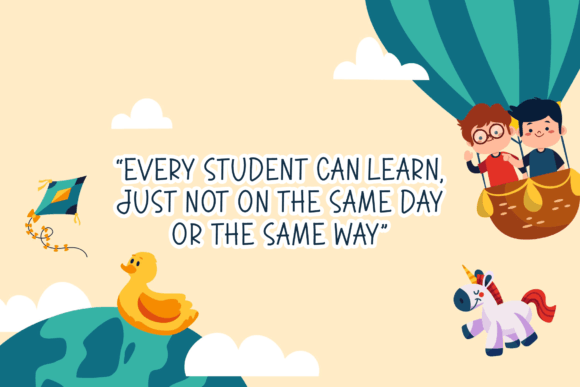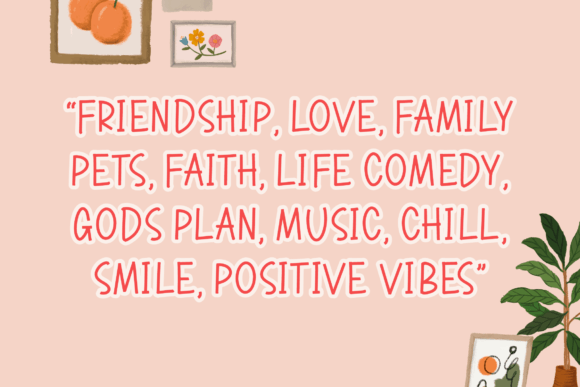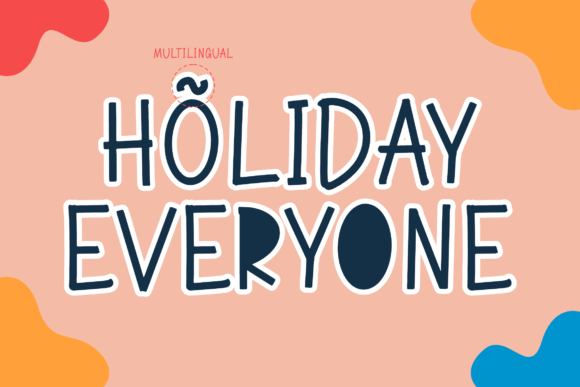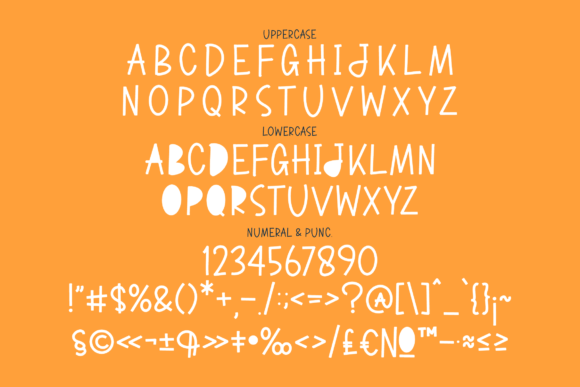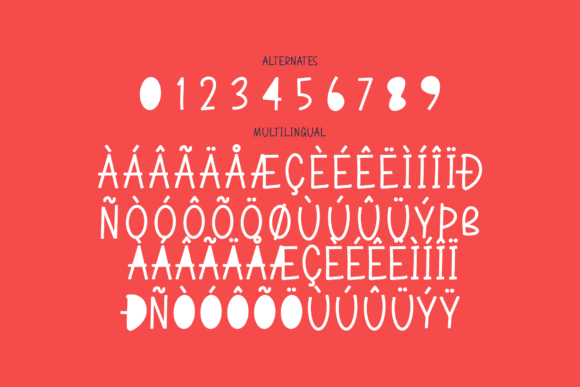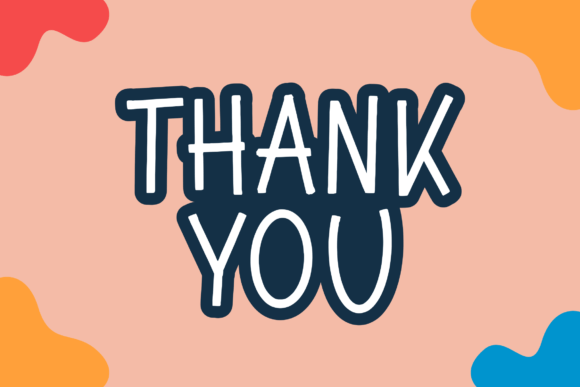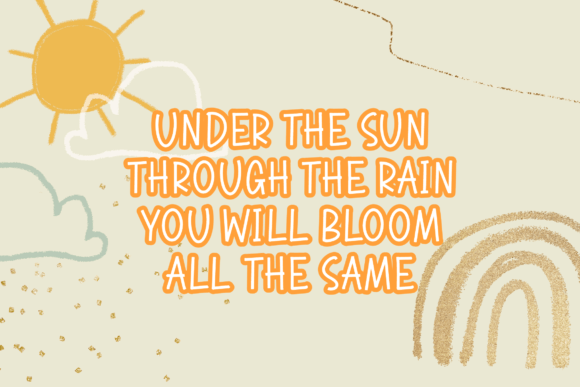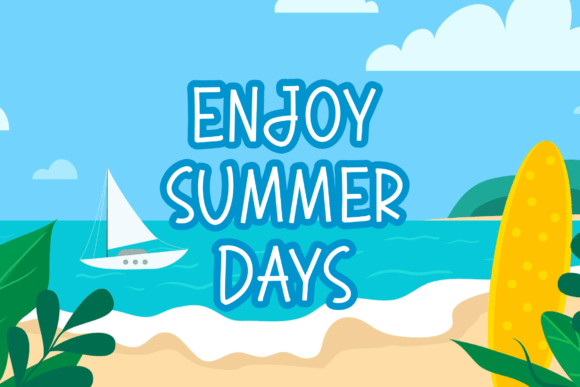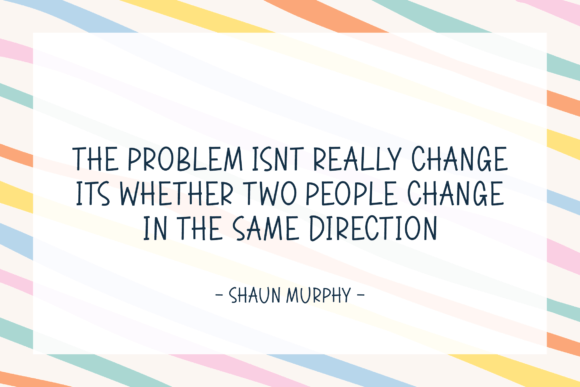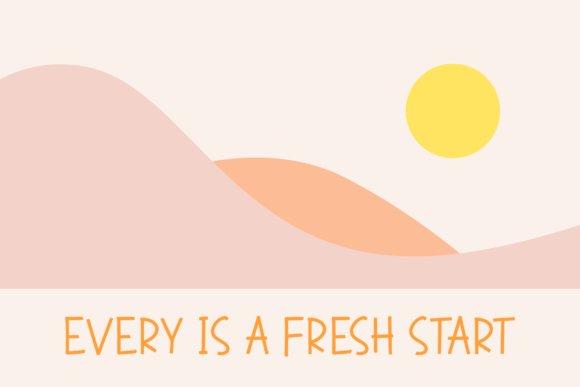
**Introducing SWEET MARKER: Infuse Cuteness and Quirk into Your Creative Ventures**
Meet SWEET MARKER, the epitome of cuteness and quirkiness in the world of handwritten fonts. This delightful typeface radiates an incredibly friendly feel, making it a perfect choice for a myriad of creative endeavors. Whether you’re curating your Instagram aesthetics or embarking on DIY projects that crave a touch of whimsy, SWEET MARKER is the magic wand that transforms every creative idea into a true piece of art!
**Captivating Cuteness:**
SWEET MARKER boasts a unique charm that’s hard to ignore. The font is imbued with a playful and cute demeanor, making it an instant favorite for those who seek to infuse their projects with a touch of lighthearted joy. Each letter exudes personality, as if it’s a character in a storybook, contributing to an overall ambiance of friendliness and approachability.
**Ideal for Instagram Vibes:**
For social media enthusiasts in search of the perfect font for their Instagram posts, SWEET MARKER is a game-changer. Its handwritten charm adds an authentic touch to captions, making your posts stand out in a sea of visuals. Whether you’re sharing daily adventures, inspirational quotes, or simply spreading positivity, this font elevates your content with an endearing appeal.
**Crafting DIY Magic:**
DIY projects thrive on personal touches, and SWEET MARKER provides just that. From handmade cards to custom labels, the font transforms ordinary materials into extraordinary creations. Its whimsical nature makes it a go-to choice for those who want their DIY efforts to be not just functional but also visually delightful.
**Transforming Creative Ideas into Art:**
At its core, SWEET MARKER is more than just a font; it’s a creative catalyst. It takes your ideas, no matter how simple or complex, and turns them into true works of art. The handwritten script adds a level of authenticity and warmth, enhancing the overall appeal of your creative endeavors.
**Conclusion: Elevate Your Creativity with SWEET MARKER**
In conclusion, SWEET MARKER is your go-to font for injecting cuteness, quirkiness, and a friendly feel into your projects. Whether you’re navigating the visual landscape of Instagram or immersing yourself in the world of DIY, this font is a versatile companion that transforms every creative spark into a visual masterpiece. Embrace the charm, captivate your audience, and let SWEET MARKER be the whimsical touch that takes your creative journey to new heights.